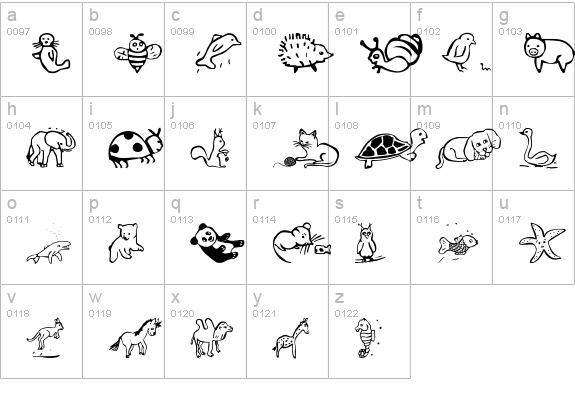
Pict'Animos Font Details
Pict'Animos font is a whimsical and charming typeface that brings life and personality to any design project. With its playful and animated letterforms, this font is perfect for adding a touch of fun and creativity to children's books, greeting cards, logos, and more. Each character is carefully crafted to showcase adorable animal-inspired illustrations, making Pict'Animos font a delightful choice for any design that aims to captivate and engage its audience. What sets Pict'Animos font apart is not just its captivating design, but also the fact that it is freely available to download. At FontsMarket.com, designers, artists, and enthusiasts alike can access this fantastic font without any cost. This means that you can bring the charm and joy of Pict'Animos font to your projects without breaking the bank. Whether you are working on a personal project or a professional endeavor, Pict'Animos font will undoubtedly bring a smile to your face and evoke a sense of playfulness. With its wide range of characters, including uppercase letters, lowercase letters, numbers, and punctuation marks, you have all the tools you need to create eye-catching designs that stand out from the crowd. So why wait? Dive into the world of Pict'Animos font and let your imagination run wild. Download this font for free at FontsMarket.com and infuse your designs with the adorable charm and whimsy that only Pict'Animos can provide. Get ready to captivate your audience and create memorable experiences with this delightful and freely accessible font.